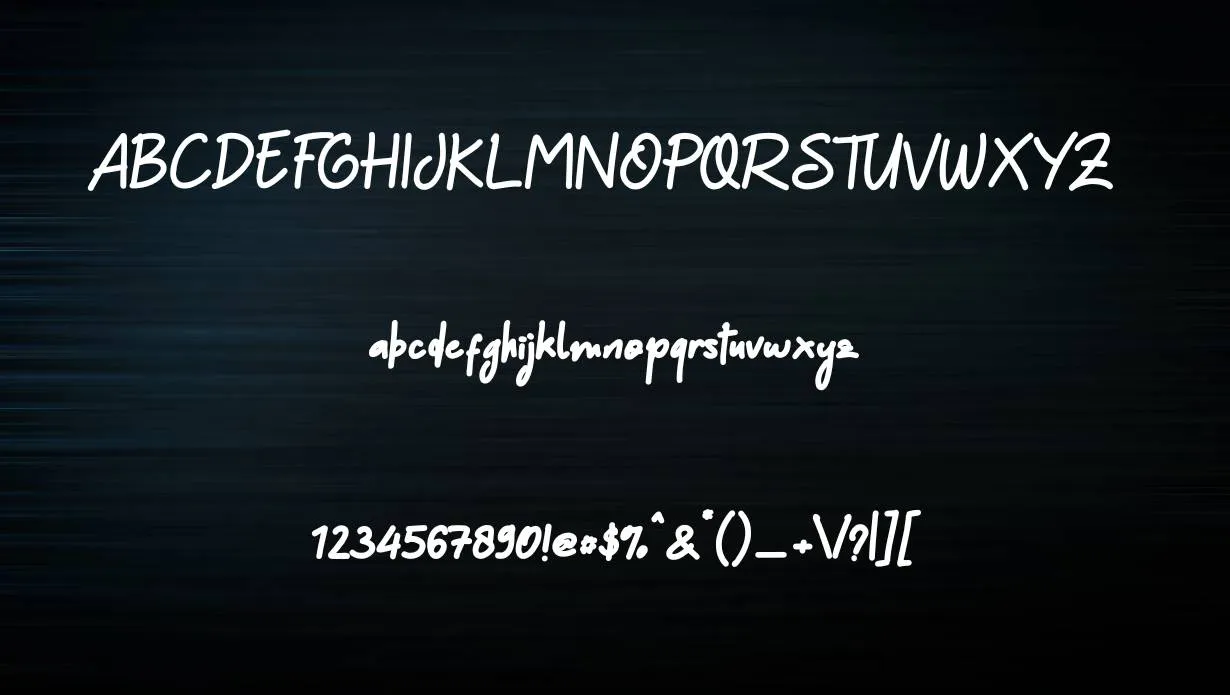
Delala Font is a unique typeface that defies conventions with its creative and unconventional style. Each letter appears to be a puzzle piece, coming together to form a more artistic and distinctive overall image.
This font is ideal for projects that aim to embrace uniqueness and creativity. Delala Font offers an original and distinctive look, like a canvas waiting for the strokes of imagination to create a masterpiece. It stands out as a symbol of individuality and artistic expression, adding an element of creativity to any design.